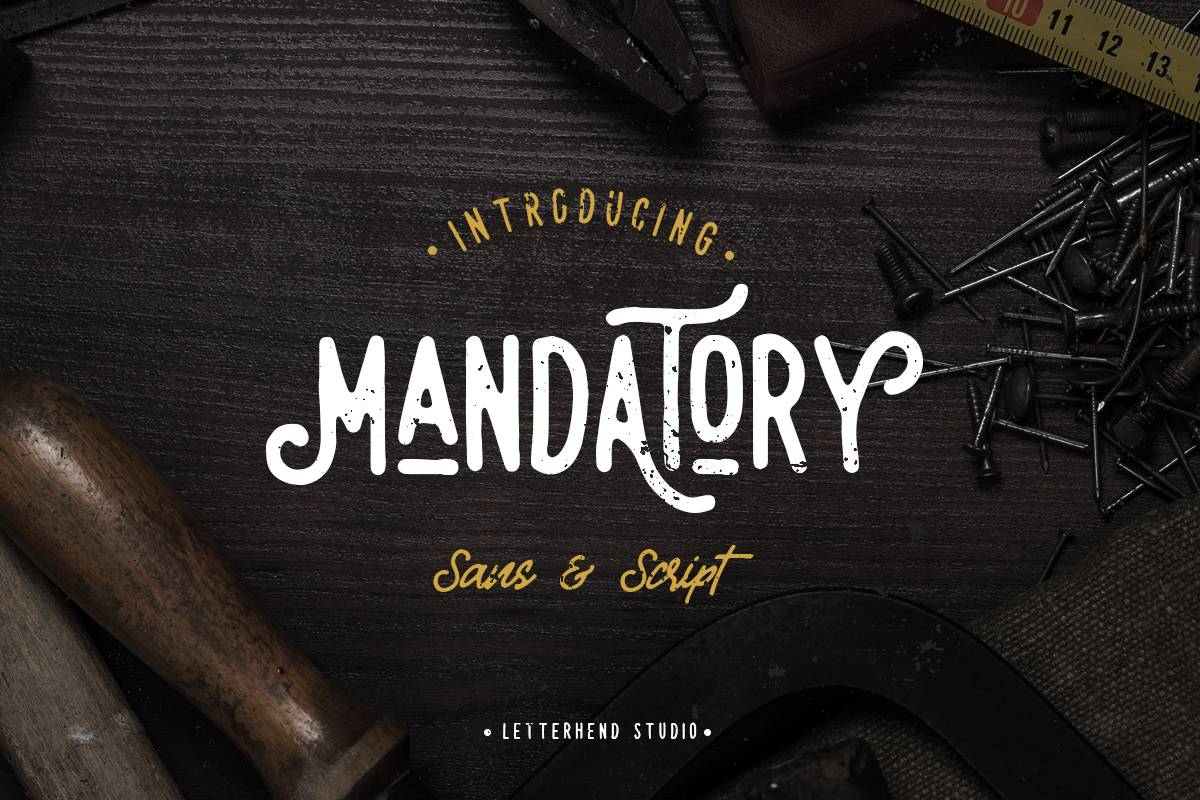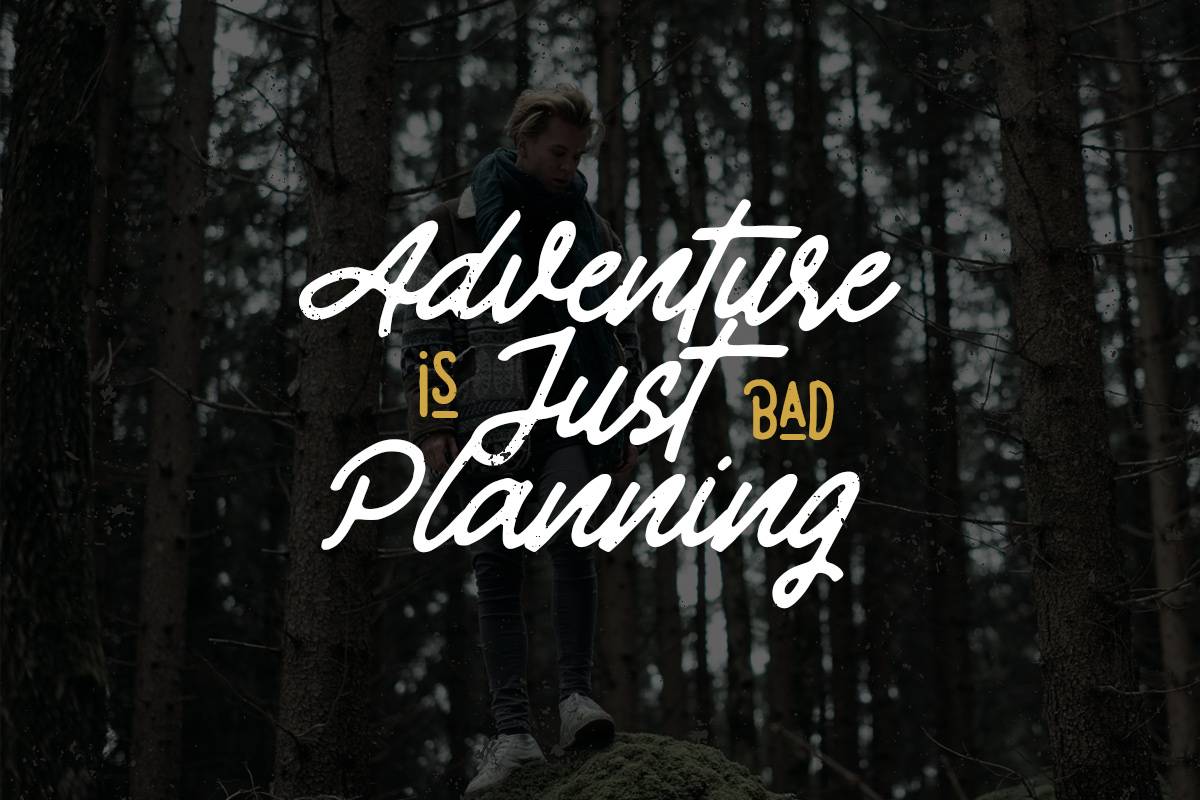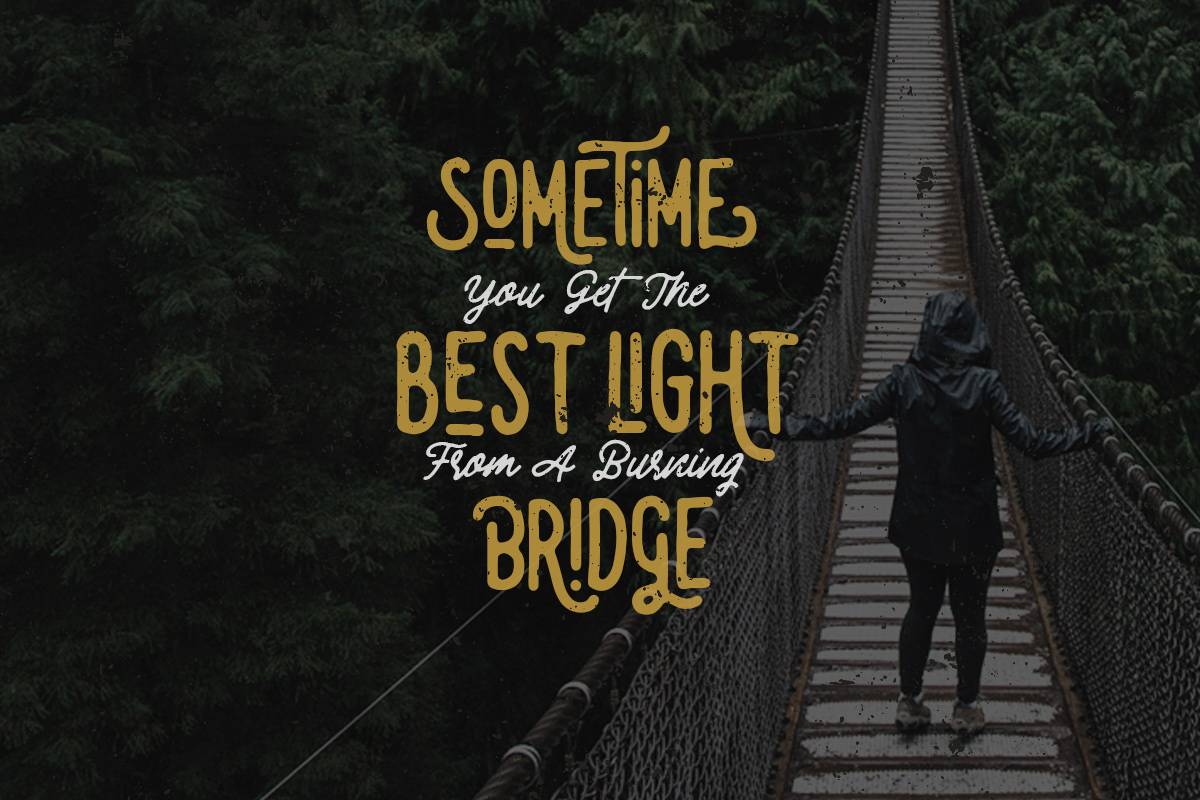
Mandatory Font is a lively, handwritten script typeface characterized by its casual, flowing strokes and moderate weight that gives it a natural, personal touch. Its playful yet readable letterforms work beautifully for creative projects, invitations, branding, and headlines where a warm, approachable, and informal feel is desired. This font lends a friendly and expressive personality, making it ideal for designs that want to communicate charm and individuality.
Mandatory Font
About Mandatory Font